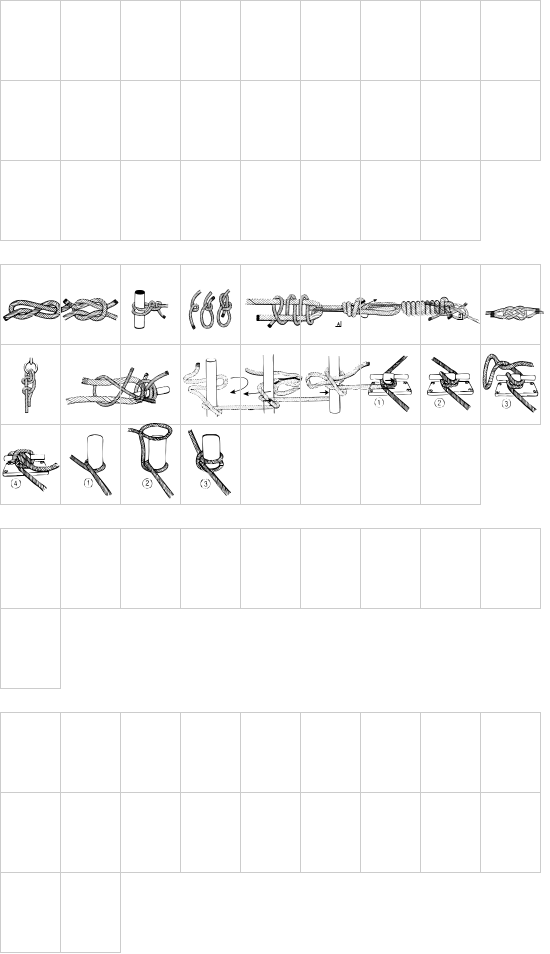
SailorsKnots
About SailorsKnots
SailorsKnots is a nautical dingbat font made up of rope-knot symbols and maritime illustrations. Each key reveals a different knot or seafaring motif, drawn cleanly enough to read as a decorative accent or a feature element in a coastal layout.